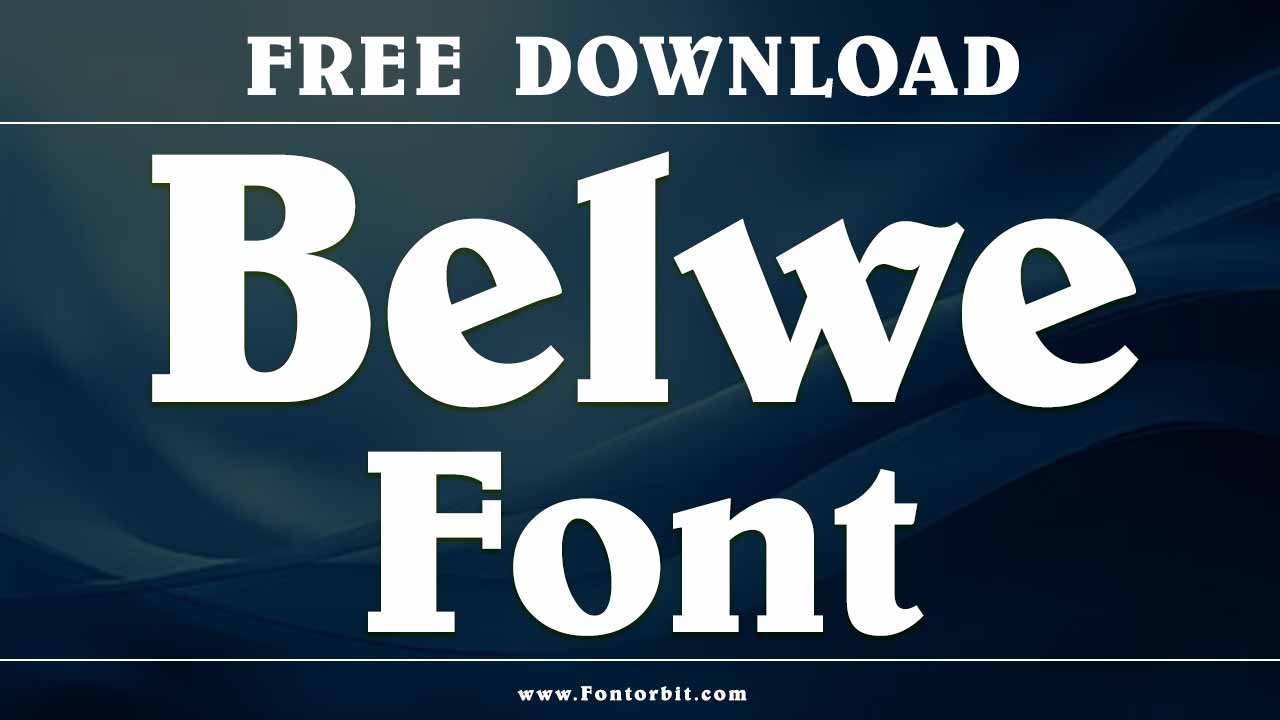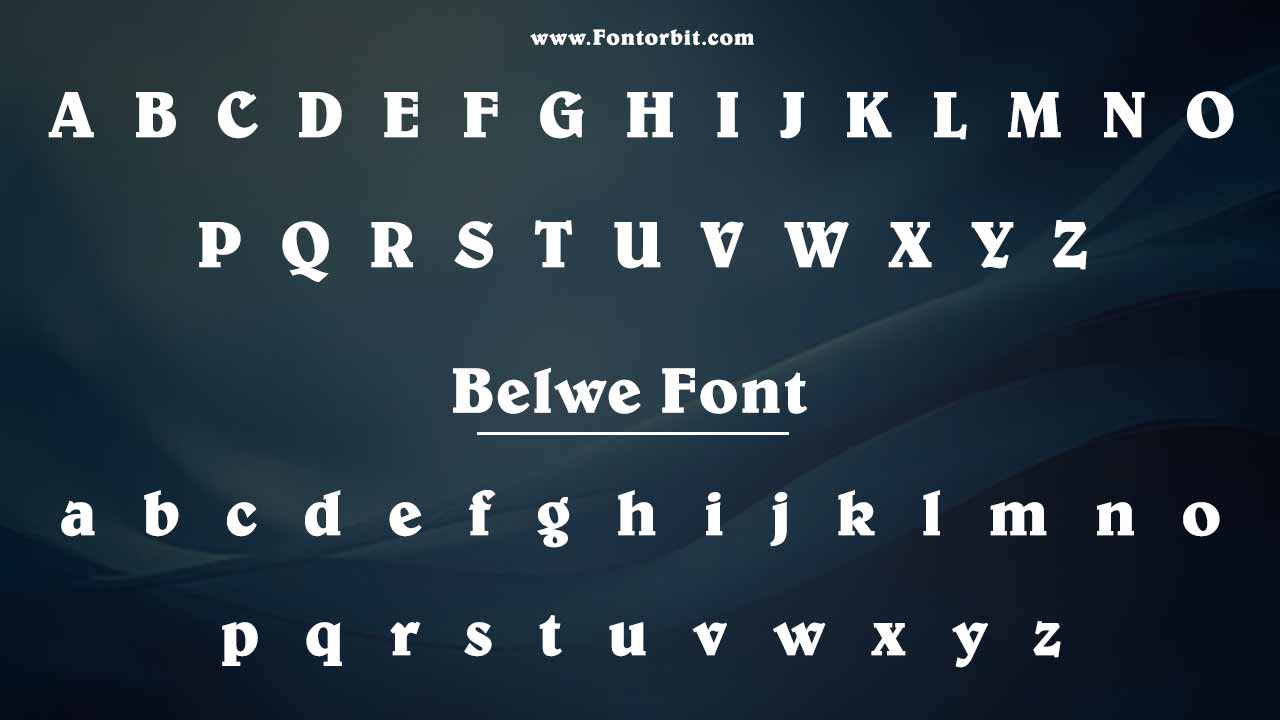
When it comes to choosing the right typeface for your project, Belwe Font is an exceptional option. Designed by Georg Belwe and first published by Schelter & Giesecke, this font family has a unique appeal that caters to a wide range of design needs. Whether you’re working on a poster, website, logo, or print materials, Belwe offers versatility, elegance, and a distinctive style that makes it stand out.
Belwe Font Style And Characteristics
Belwe Font belongs to the slab serif category, yet it integrates decorative elements that make it both functional and aesthetically pleasing. Its bold and medium weights are perfect for making impactful headlines, while its lighter styles suit subtle and intricate designs. The typeface’s deliberate proportions hint at its connection to Old English and medieval influences, giving it a touch of timeless sophistication.
The Belwe Font Family Includes Four Distinct Styles:
- Belwe Std Light
- Belwe Std Medium
- Belwe Std Bold
- Belwe Std Condensed
Each style in the font family is designed to provide versatility while maintaining the unique charm of Belwe Antiqua, its predecessor. The font’s elegant curves and clear glyphs make it ideal for use in both modern and traditional settings.
Why Designers Love Belwe Font
- Versatility Across Projects: Whether you’re creating a professional poster, designing logos, or crafting a unique website, Belwe Font adapts seamlessly. Its clear and legible forms ensure readability while adding character to your design.
- Character Map and Glyphs: The font includes a detailed character map, covering a range of characters from Latin to Cyrillic, Greek, and basic symbols. Its extensive range supports multilingual projects and creative typography.
- Decorative Yet Functional: Unlike overly ornate typefaces, Belwe strikes a balance between fancy decorative elements and usability. Its stencil and fraktur inspirations give it a unique edge while maintaining legibility.
- Rich History: Designed by Georg Belwe, this typeface reflects the craftsmanship of its time. Published originally by Schelter & Giesecke and later distributed by Bitstream, the font’s roots trace back to early 20th-century typography. Its historical significance adds a layer of depth to your designs.
Popular Uses For Belwe Font
- Posters and Advertisements: The bold styles grab attention, making it a go-to choice for impactful marketing materials.
- Logos and Branding: Its unique forms ensure your logo stands out while conveying professionalism.
- Print Materials: Belwe’s clarity and elegance enhance any printed medium from book covers to brochures.
- Web Design: The font’s legibility and distinct style make it ideal for website headers and titles.
- Decorative Projects: Belwe’s artistic elements make it suitable for creative projects like medieval and Gothic designs.
Why Belwe Stands Out Among Typefaces
Unlike other typefaces, Belwe blends historical design influences with modern usability. Its versatility and broad glyph range make it suitable for a variety of languages and design applications. Designers often pair it with popular fonts like Bodoni for a polished look.
Belwe Font is a timeless and versatile typeface that works well in various design applications, from posters and logos to websites and print materials. Its elegant design, rooted in history, adds character and sophistication to any project. Whether you’re drawn to its bold headlines or intricate decorative elements, Belwe is the perfect choice for designers seeking a balance of functionality and flair.
1.What Is Belwe Font’s Style?
Belwe Font is a slab serif typeface with decorative elements inspired by Old English and medieval typography.
3.What Styles Are Included In The Belwe Font Family?
The family includes four styles: Light, Medium, Bold, and Condensed.
4.What Makes Belwe Suitable For Logos?
Its distinctive design and clear legibility make it a great choice for creating unique and professional logos.
5.Does Belwe Font Support Multiple Languages?
Yes, it includes characters for Latin, Cyrillic, and Greek, among others.